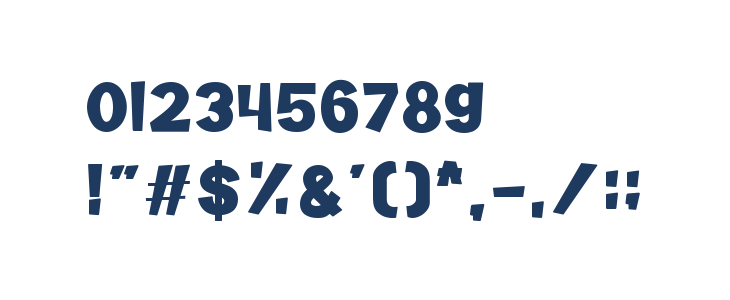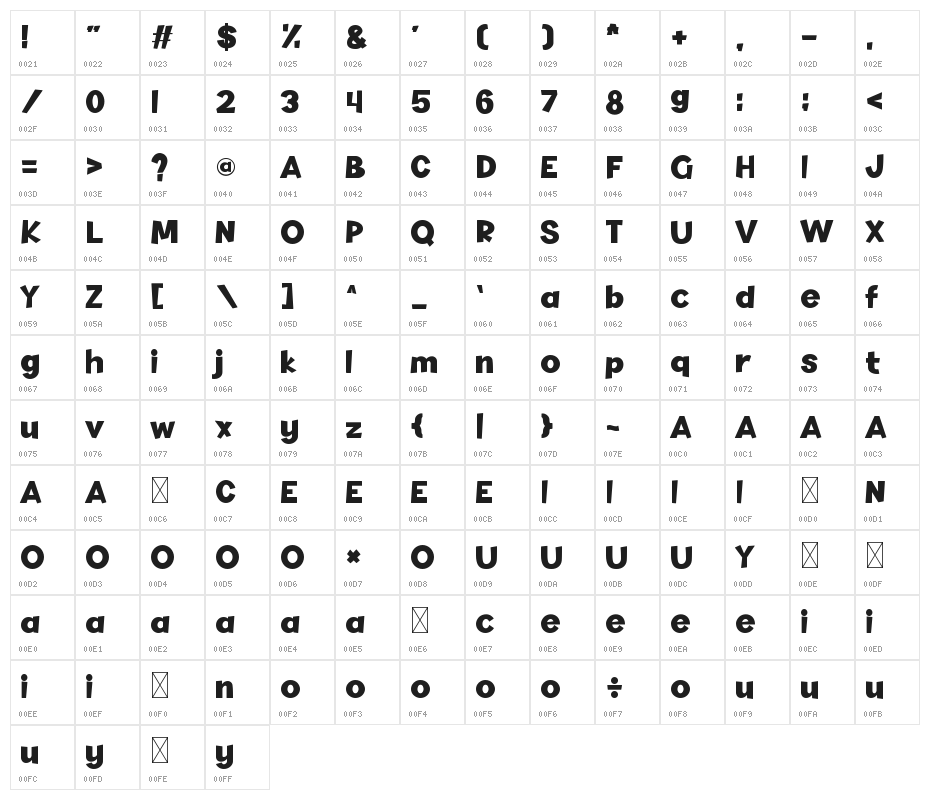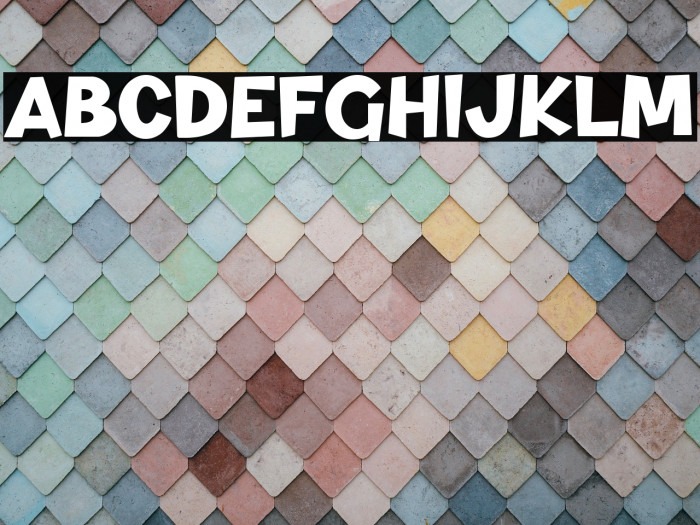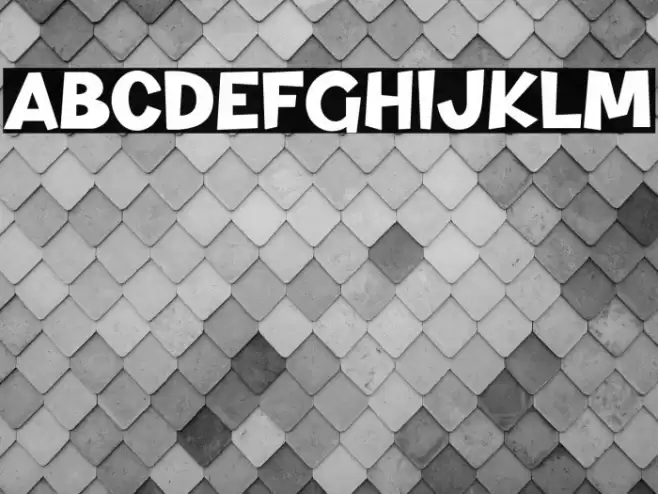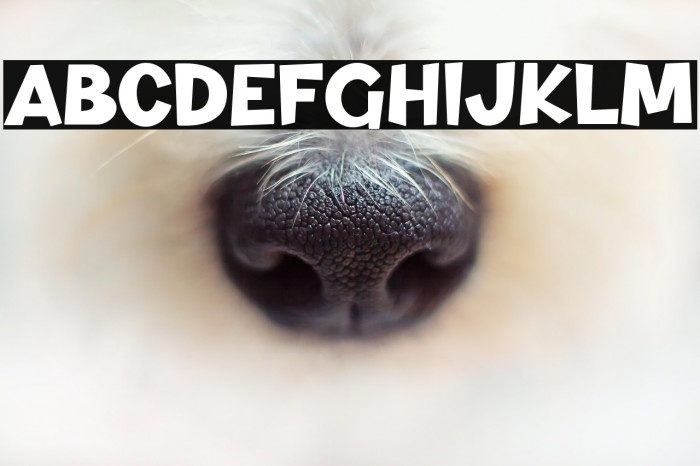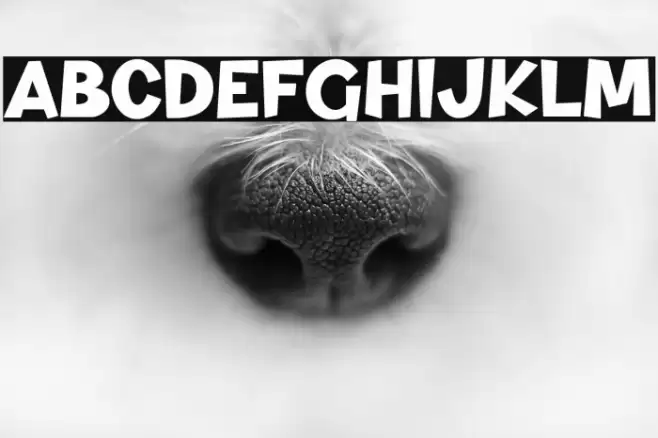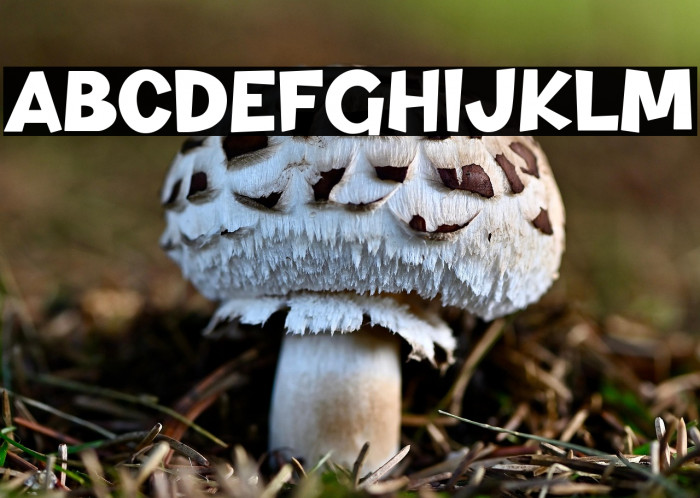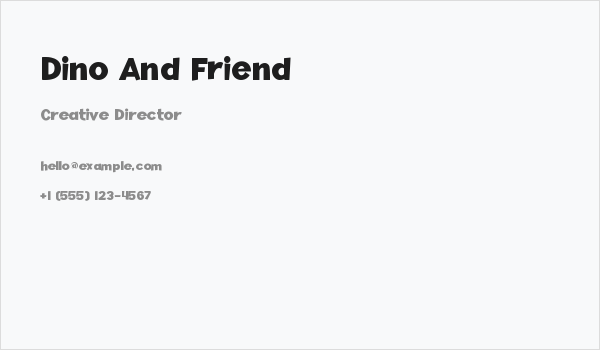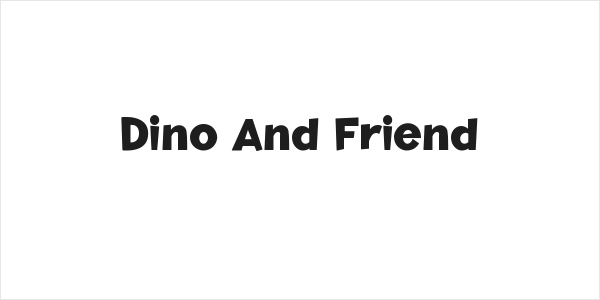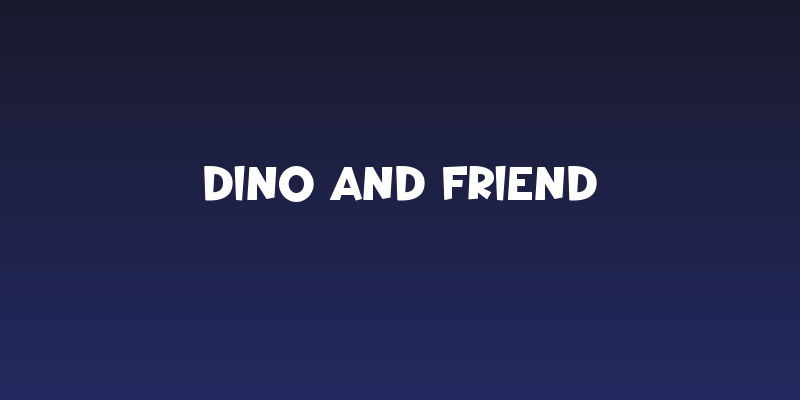
Dino And Friend Font
Dino And Friend Description
This playful and bold font features a whimsical, cartoon-like style with rounded edges and a slightly irregular baseline, giving it a friendly and approachable appearance. The uppercase and lowercase letters are consistent in their boldness, with a slight tilt that adds to the dynamic feel. The numerals and special characters maintain the same playful aesthetic, making the font versatile for various creative applications. Its thick strokes and rounded forms ensure high legibility, even at smaller sizes, while the quirky design elements make it stand out in any project.
| Proposed Projects | Ideal for children's books, playful branding, comic strips, and educational materials. |